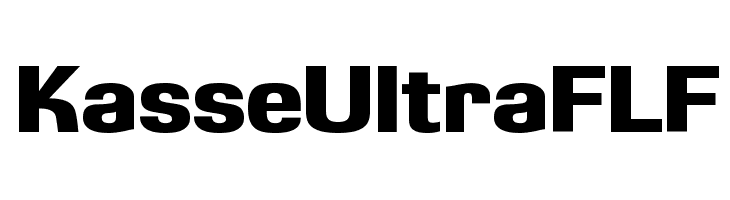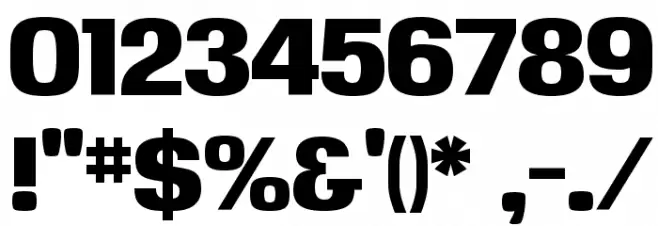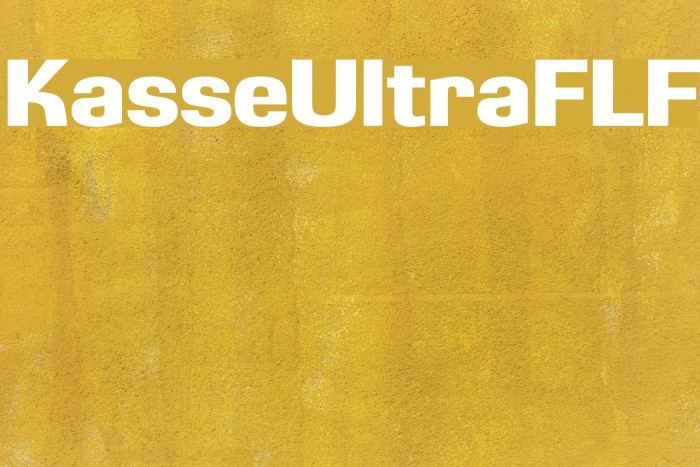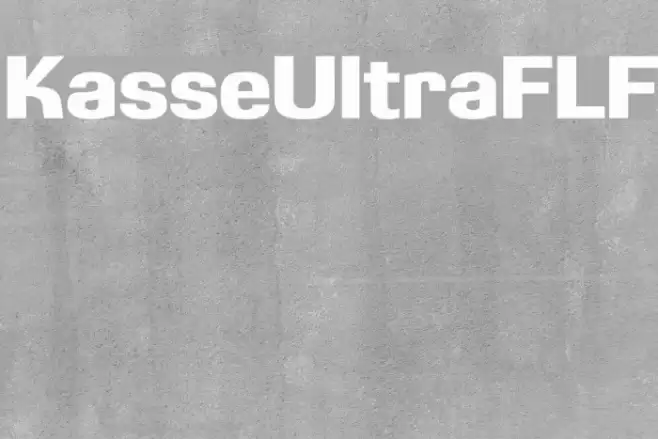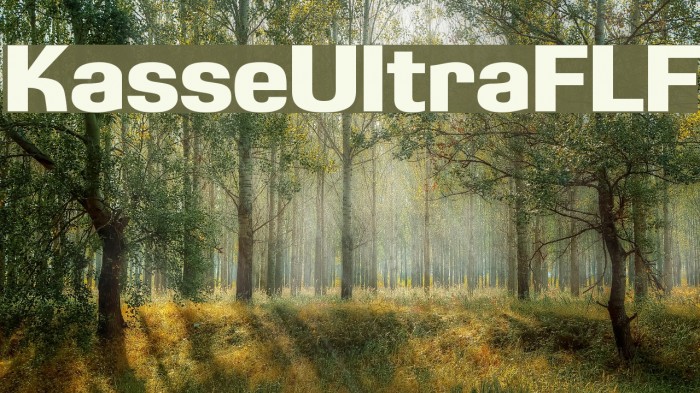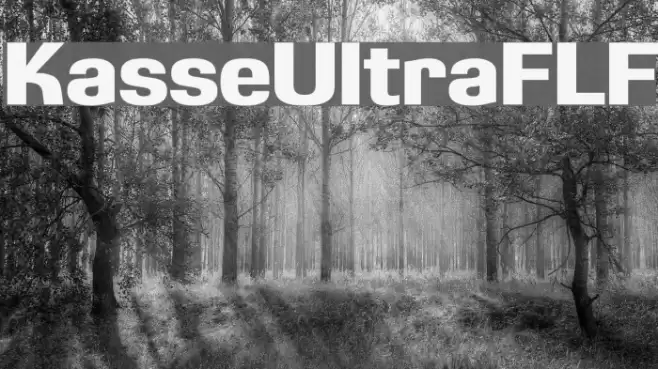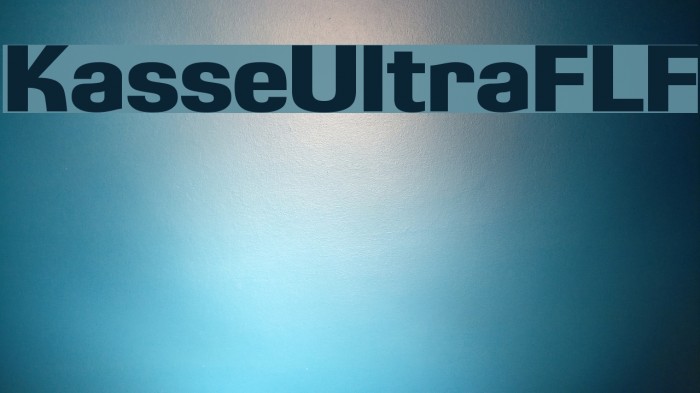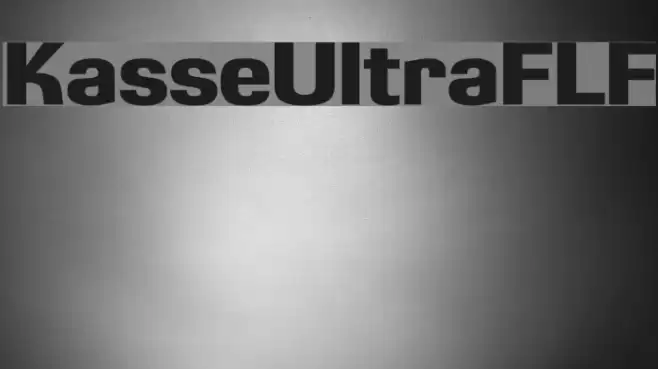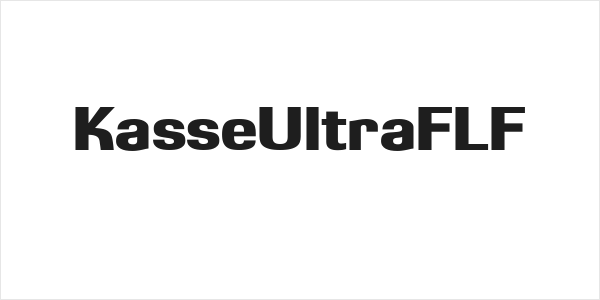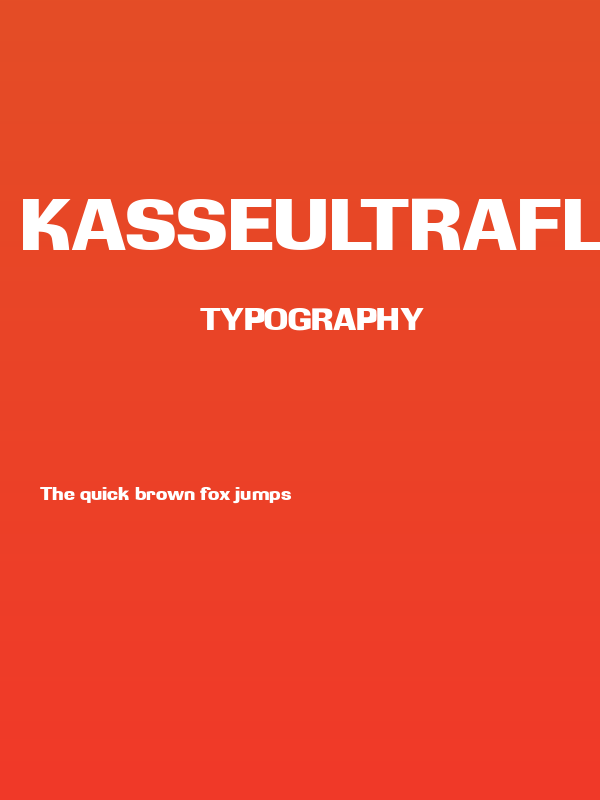
KasseUltraFLF Font
KasseUltraFLF Description
This font features a bold and assertive style with thick, uniform strokes that convey strength and impact. The characters are wide and have a strong presence, making them ideal for attention-grabbing designs. The uppercase and lowercase letters maintain a consistent weight, while the numbers and special characters are designed to match the boldness of the alphabet. The overall design is clean and modern, with a slight geometric influence that adds to its contemporary appeal.
| Proposed Projects | Ideal for headlines, posters, branding, and any design requiring a strong visual impact. |